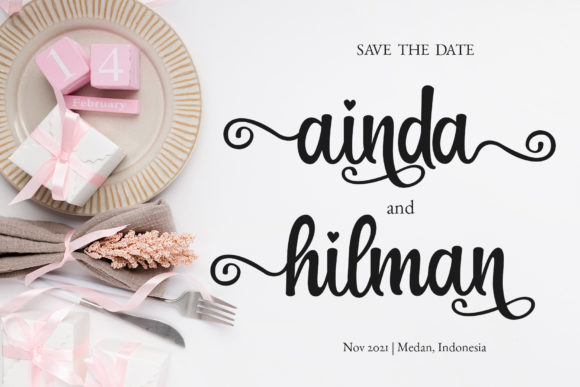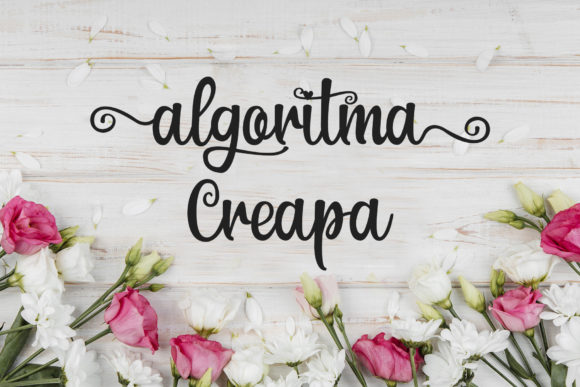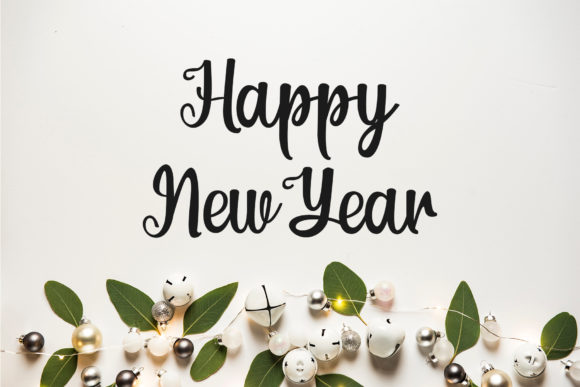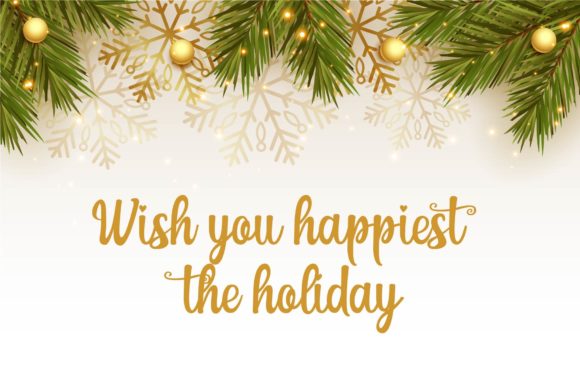
Harjuna Script Font
About Harjuna Script Font
Harjuna Script is a romantic and stylish script font. It looks lovely on various design ideas related to your favorite creations. The only limit is your imagination.